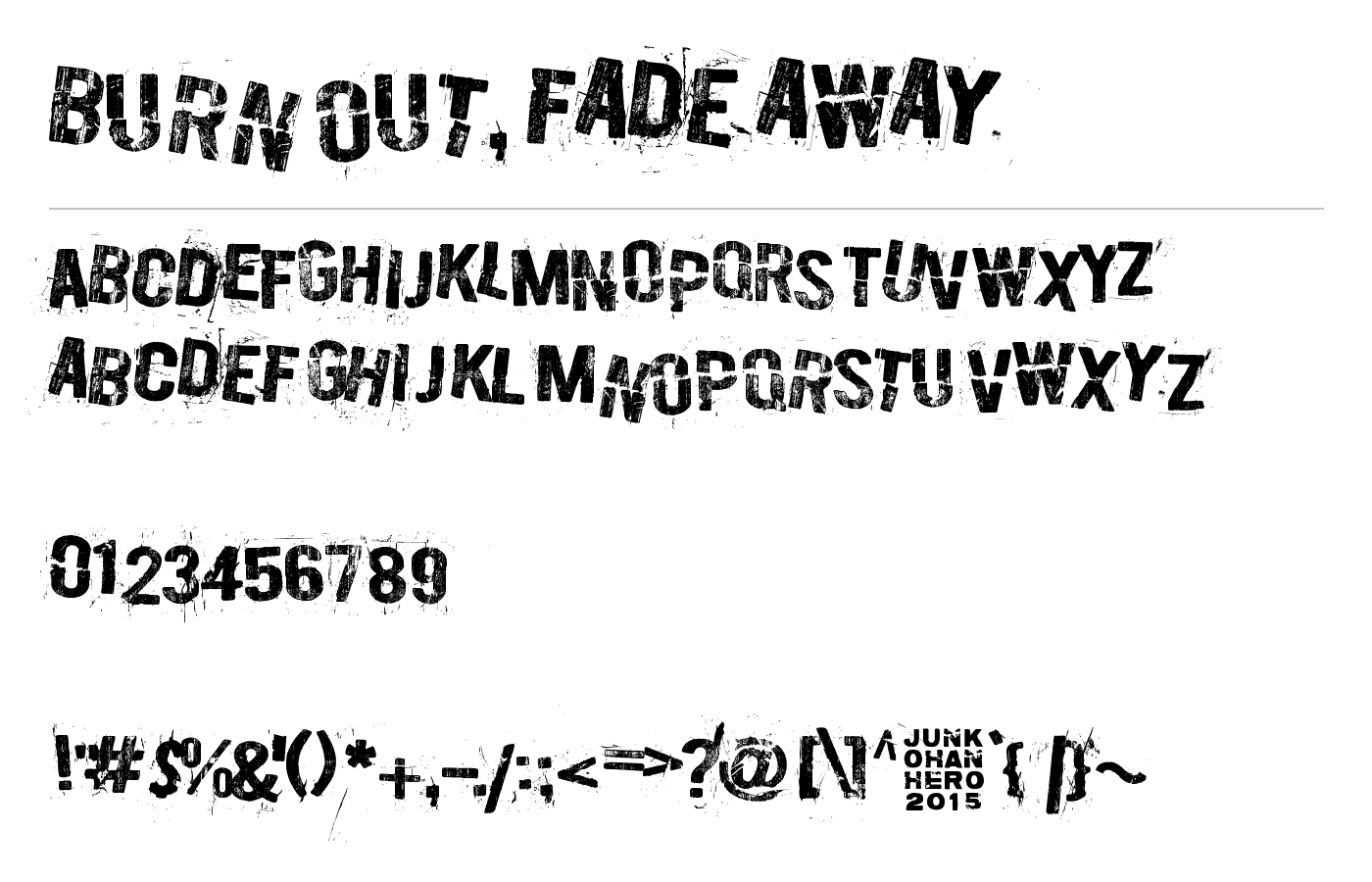
Burn Out, Fade Away is a bold, distressed sans serif font with an edgy, worn texture that gives it a gritty and rebellious vibe. Its uppercase letters and uneven, rough stroke edges create a sense of urgency and raw energy, perfect for designs that want to convey a dynamic, urban, or grunge aesthetic. This font works especially well in posters, logos, or headlines where a bold, impactful statement with a rugged character is desired.
Burn out, fade away Font
About Burn out, fade away Font
| Font family | Burn out, fade away Font |